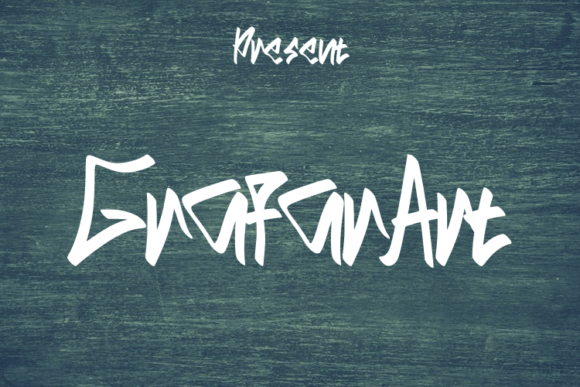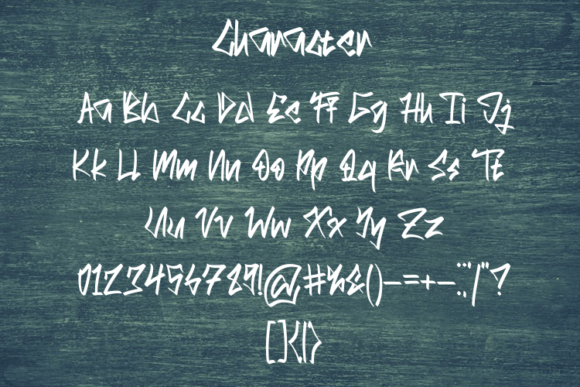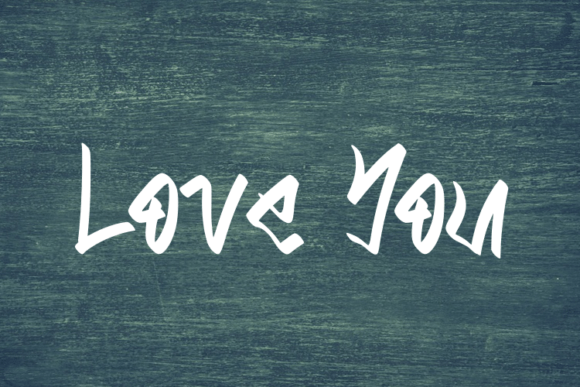
About Grafarart Font
GrafarArt is a script typeface that has a rushed style & modern look.This typeface is perfect for an elegant & luxurious logo, book or moviedesign titles, fashion brands, magazines, clothing, fonts, quotes, and more.